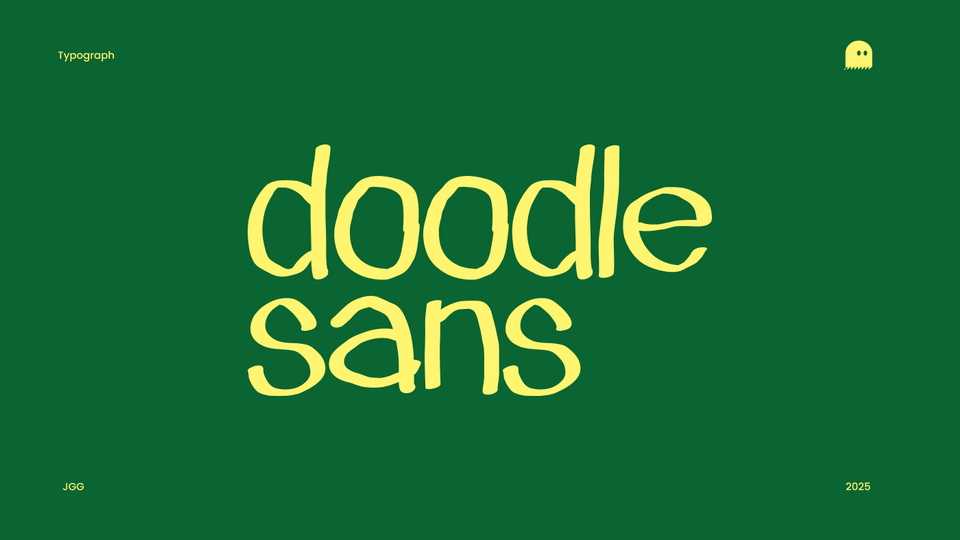
Download Doodle Sans font, a spontaneous handwriting typeface that conveys lightness and creativity with its loose, irregular strokes.
Designer: João G. Gonçalves